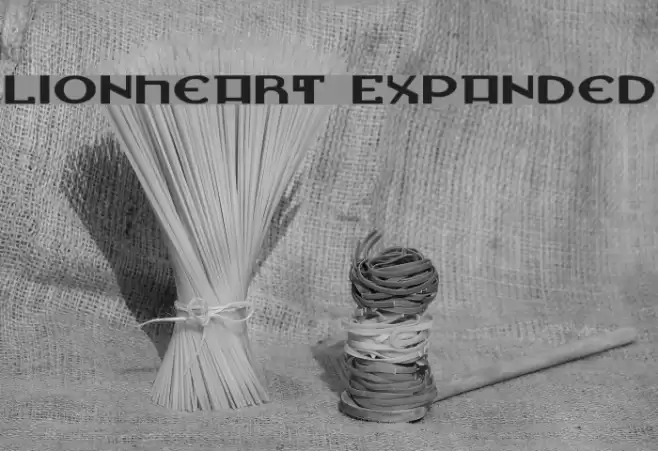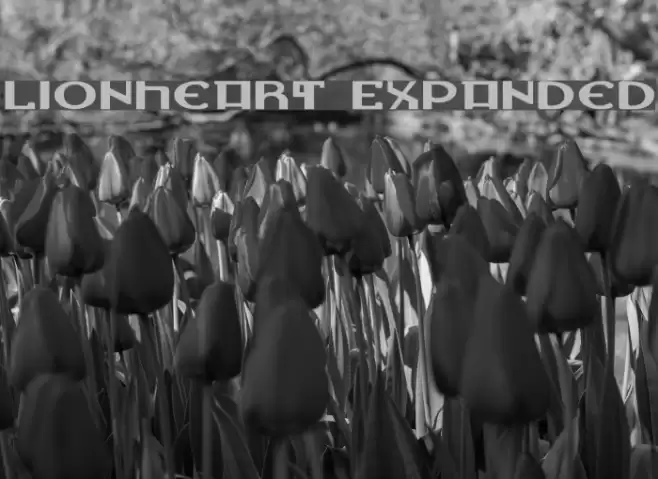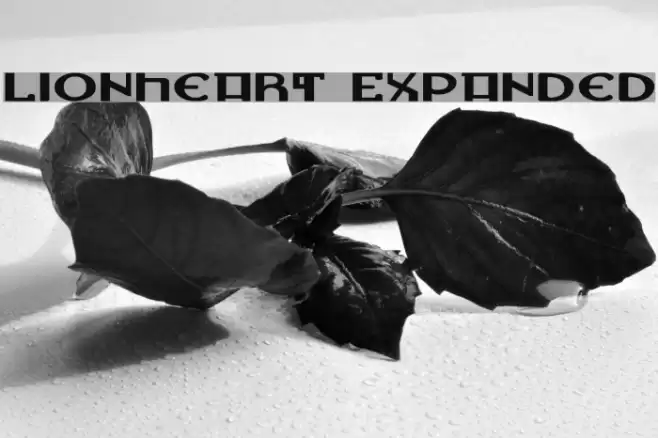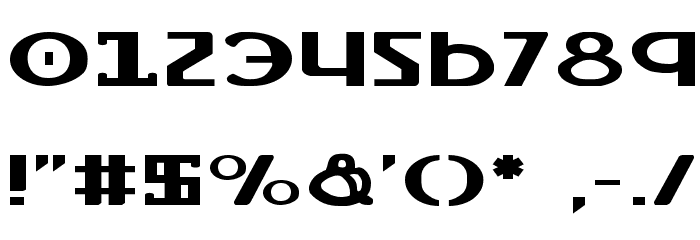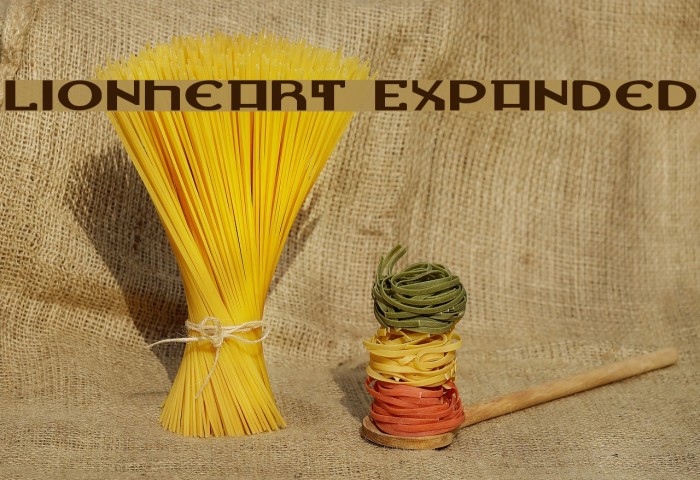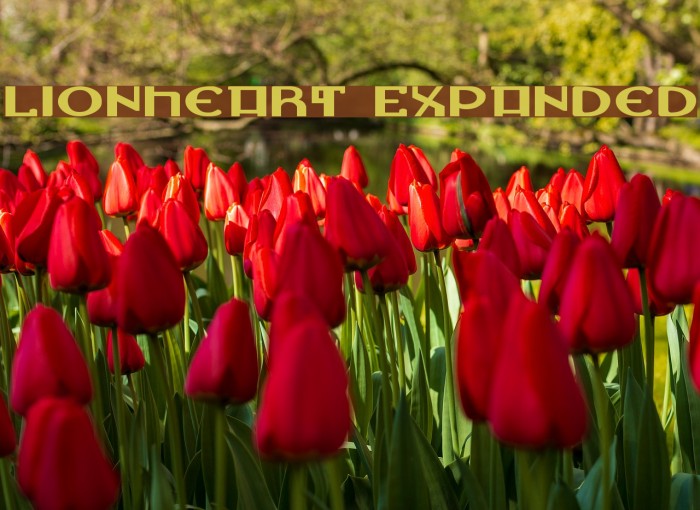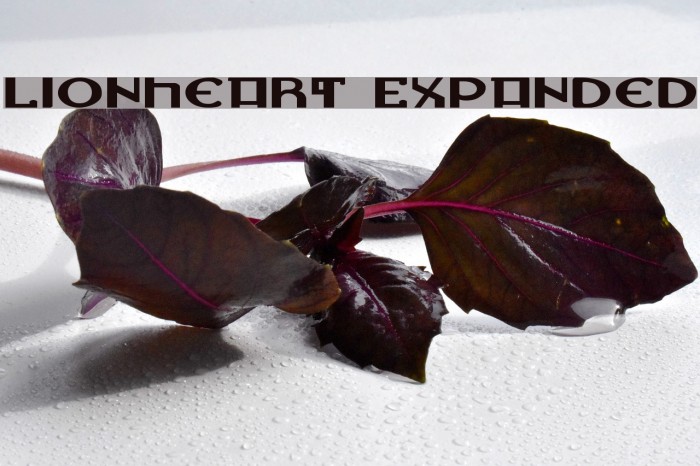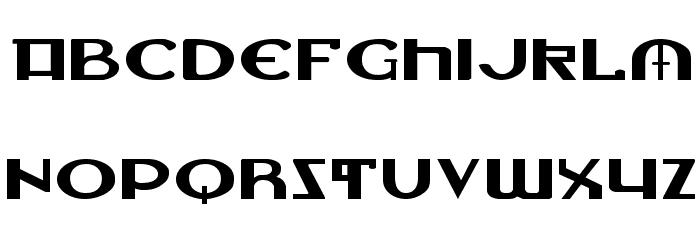
Lionheart Expanded Font
Lionheart Expanded Description
This font features a bold and striking design with a futuristic and geometric aesthetic. The characters are crafted with sharp angles and unique cuts, giving it a distinctive and modern appearance. The uppercase letters are particularly eye-catching, with some characters incorporating unexpected shapes and lines that add to the font's dynamic style. The numbers and special characters maintain this bold and angular theme, ensuring consistency across all glyphs. This font is ideal for projects that require a strong visual impact and a contemporary feel.
A bold, geometric font with a futuristic and angular design from Valentine's Day fonts.
- Proposed Projects: Ideal for branding, posters, video game graphics, and sci-fi themed projects.